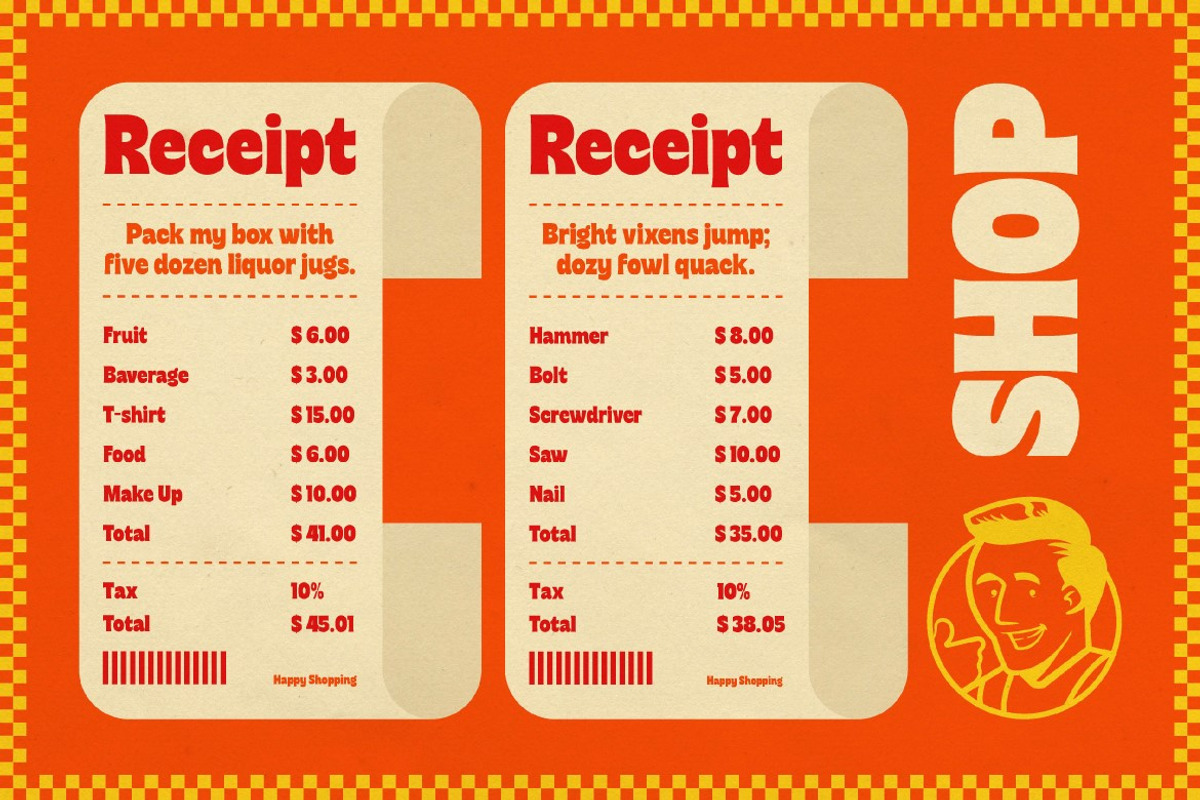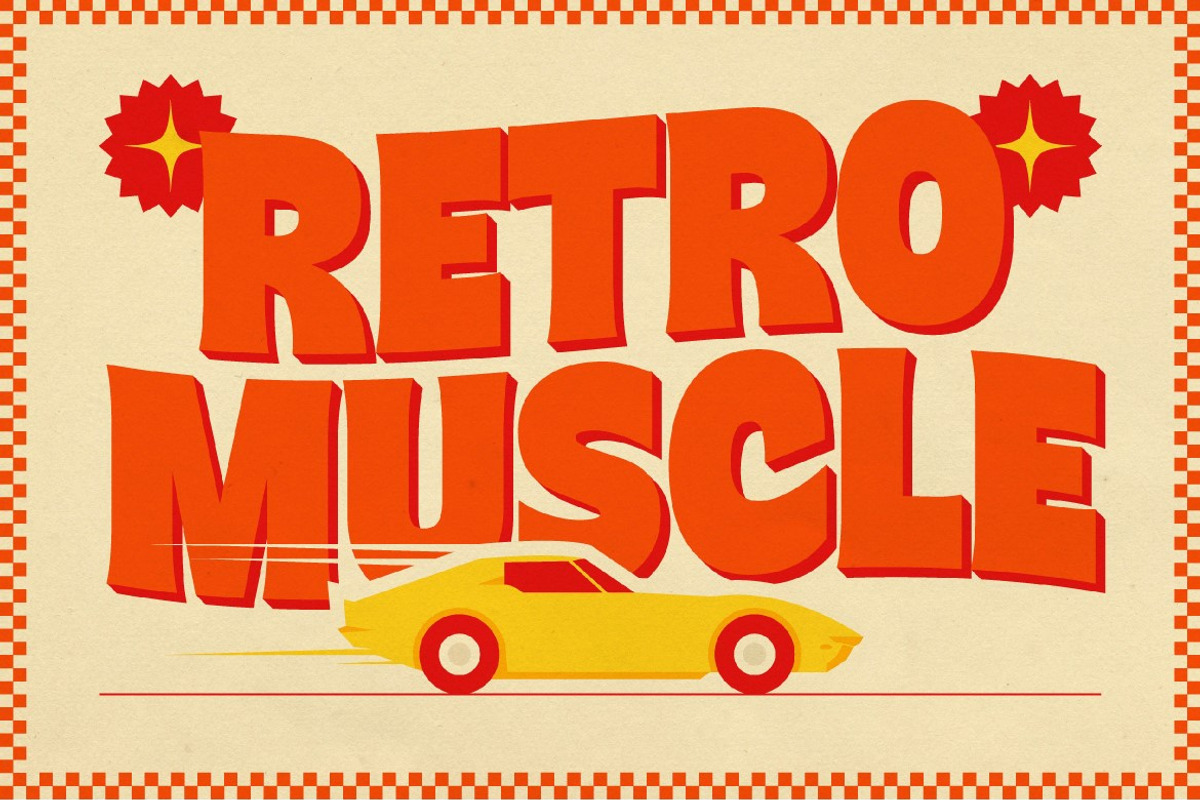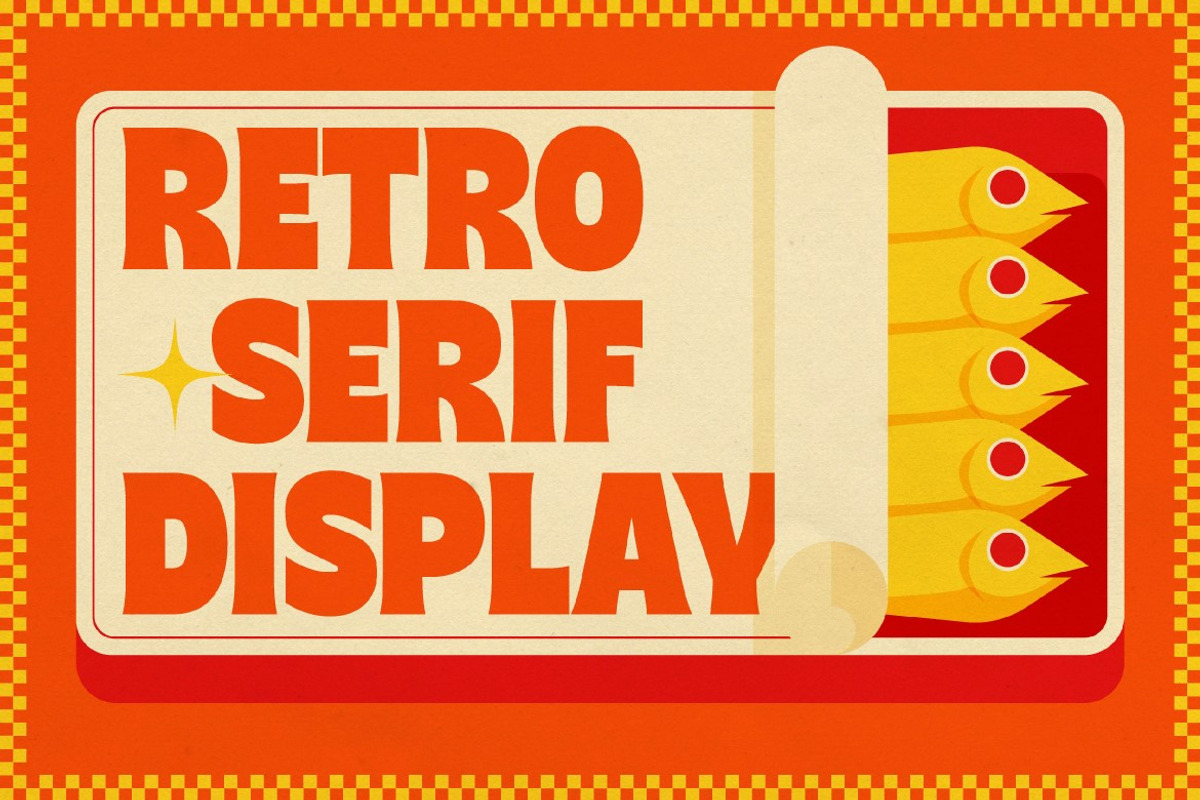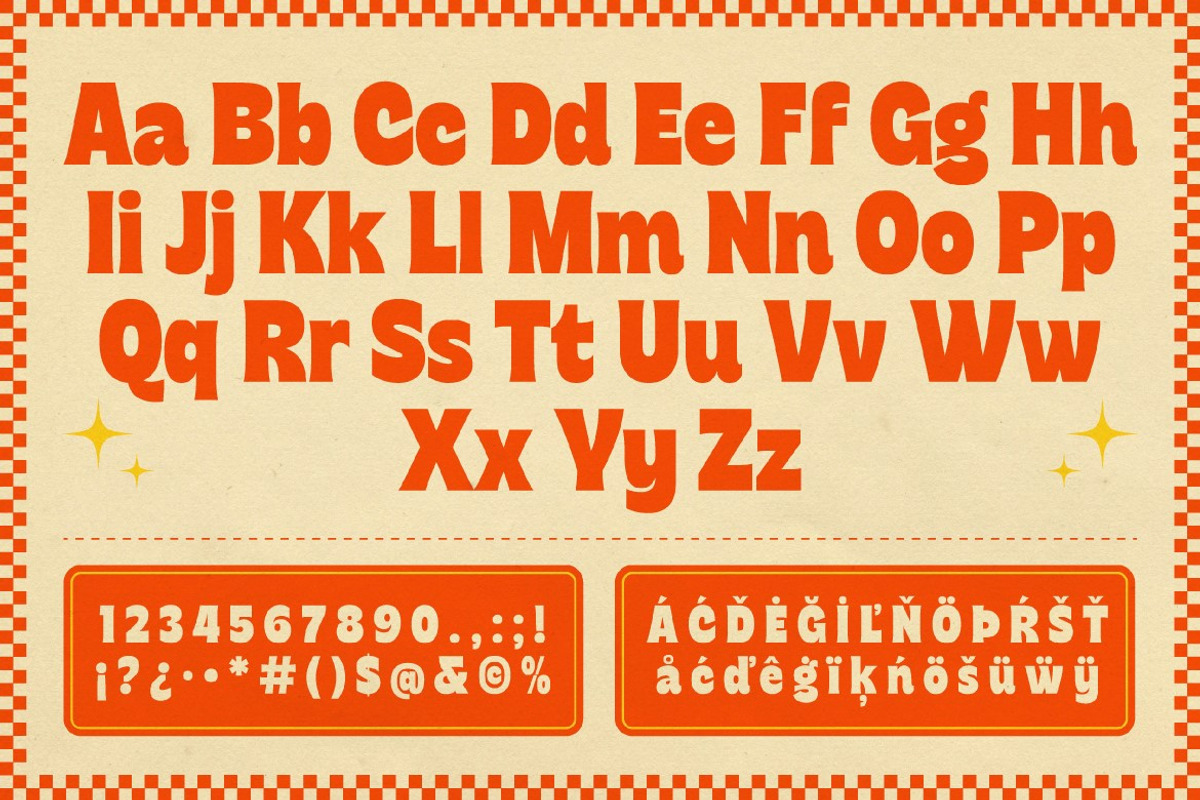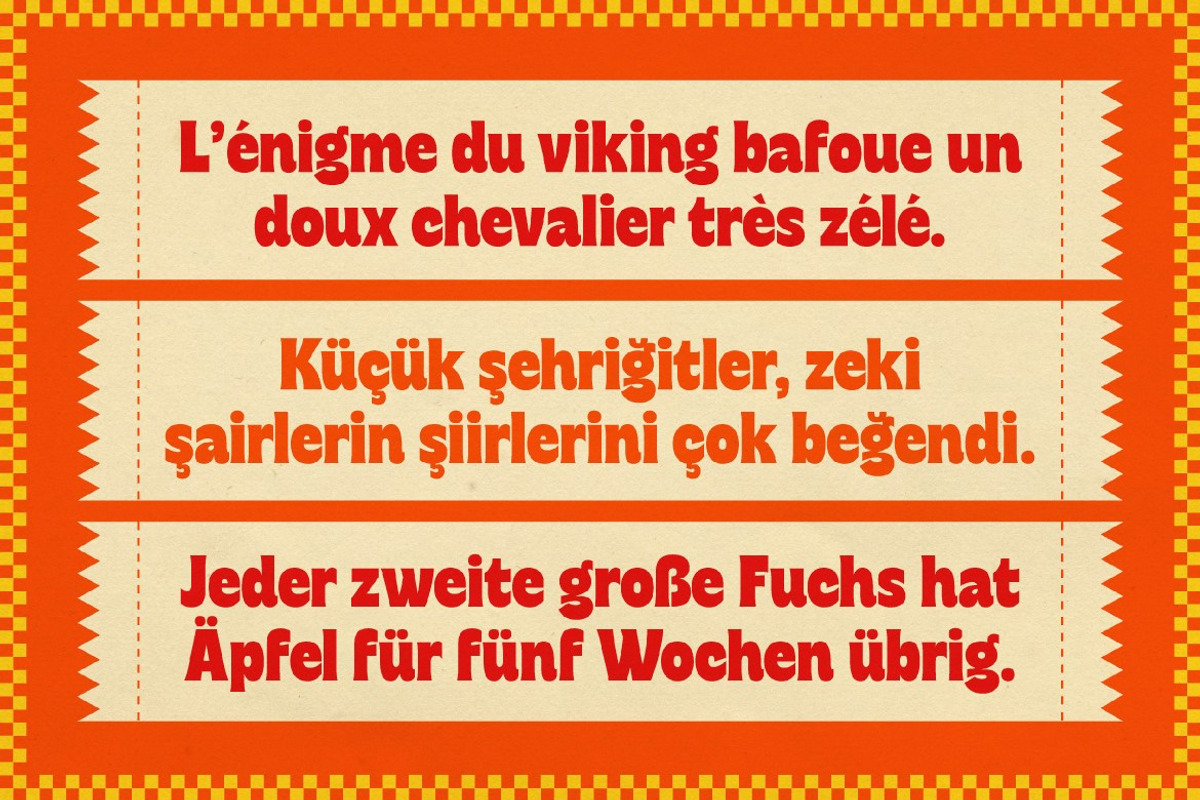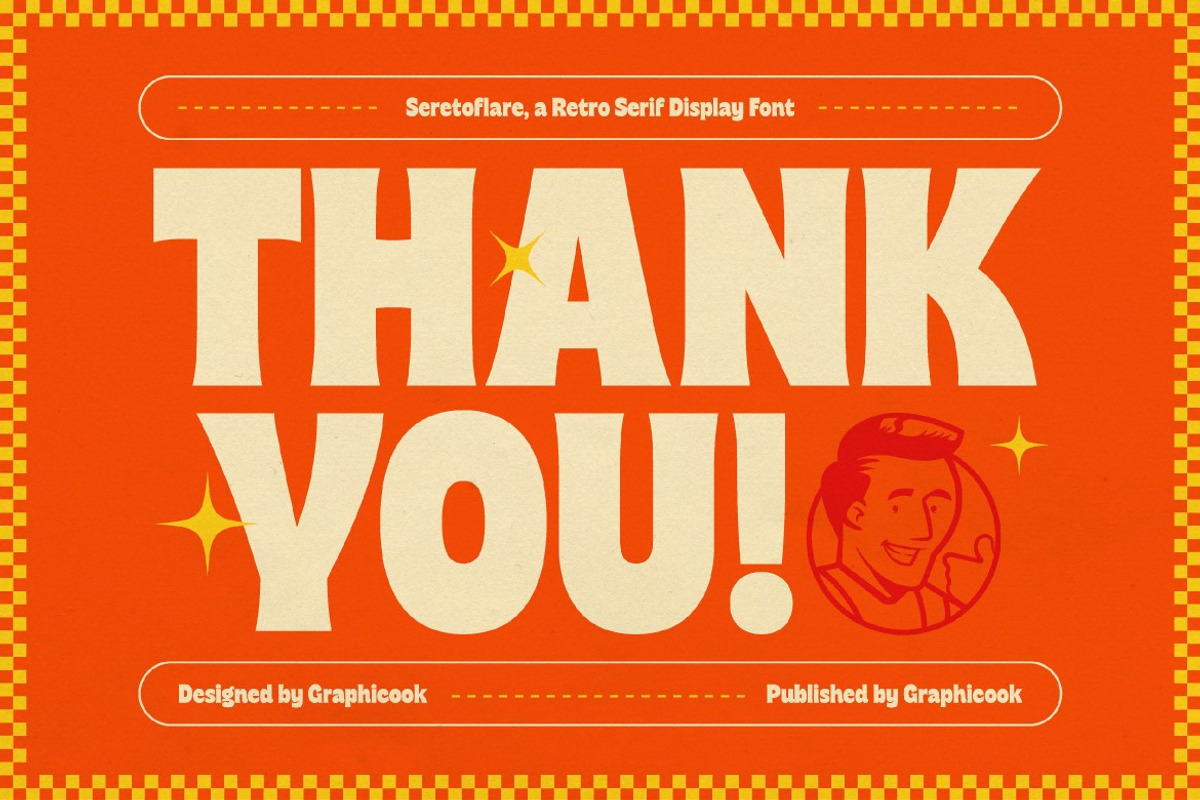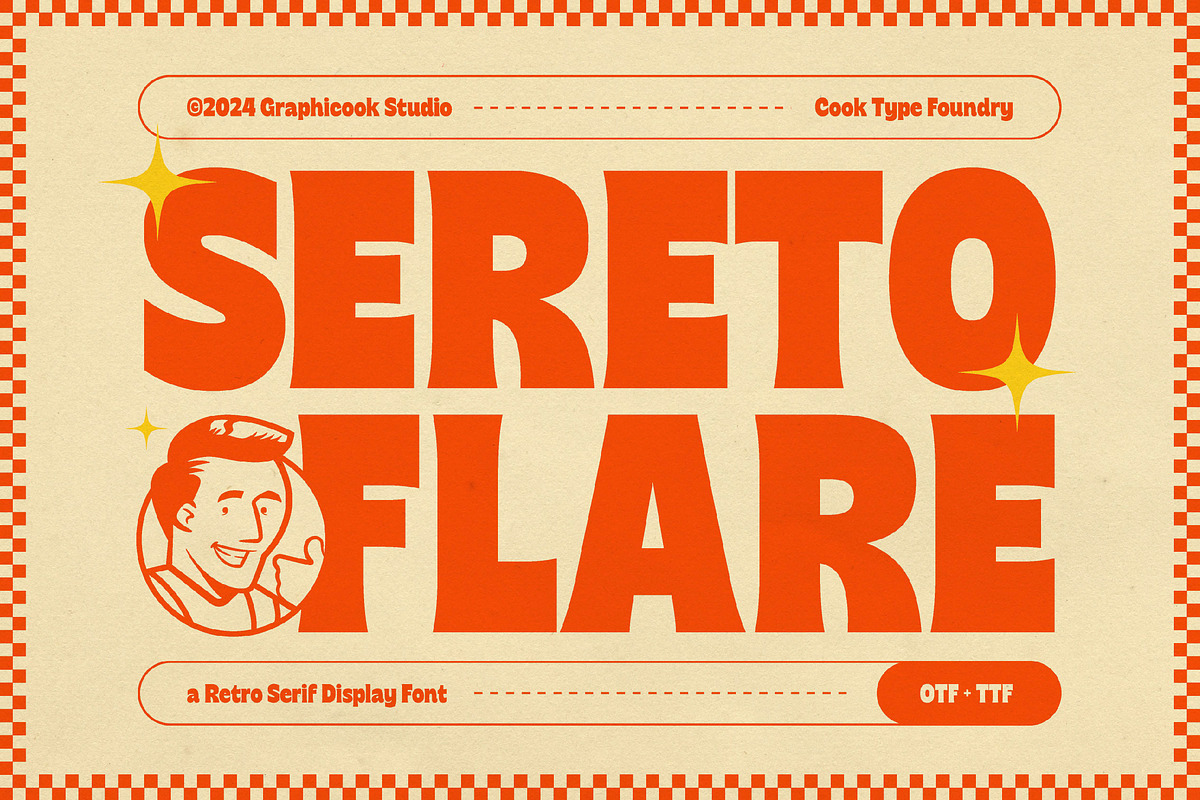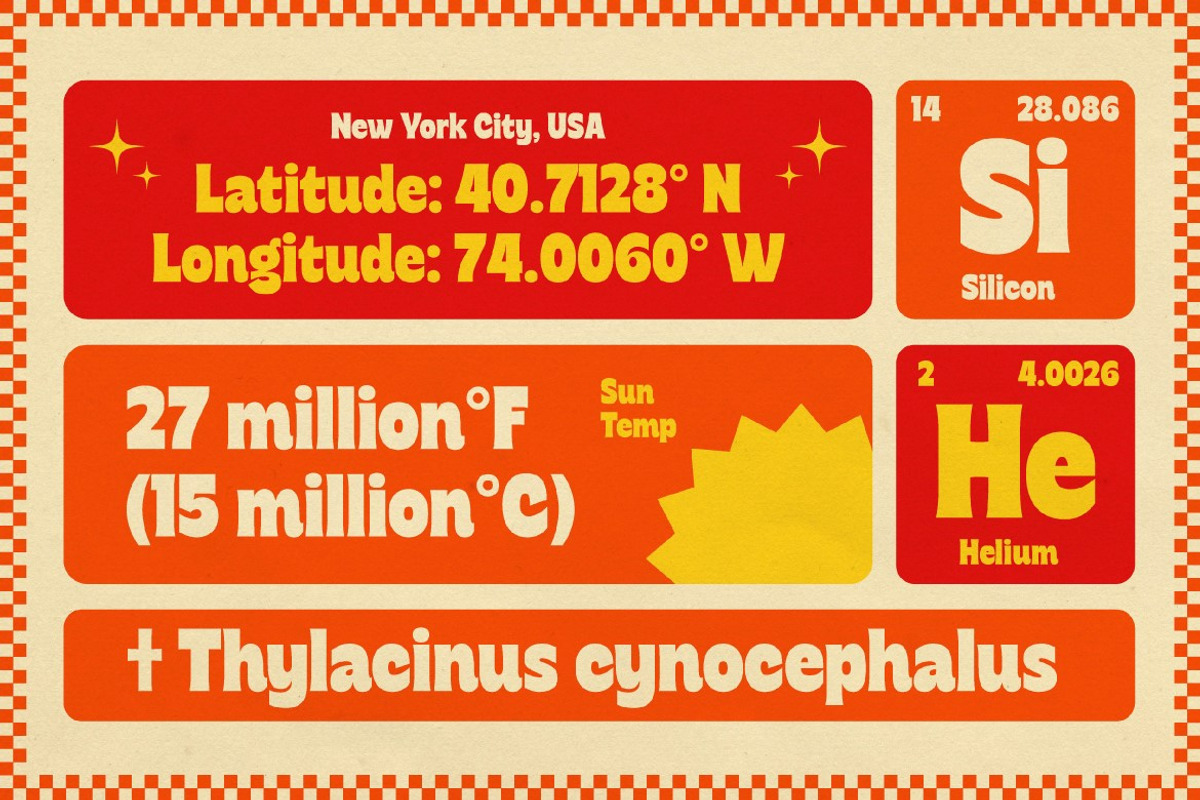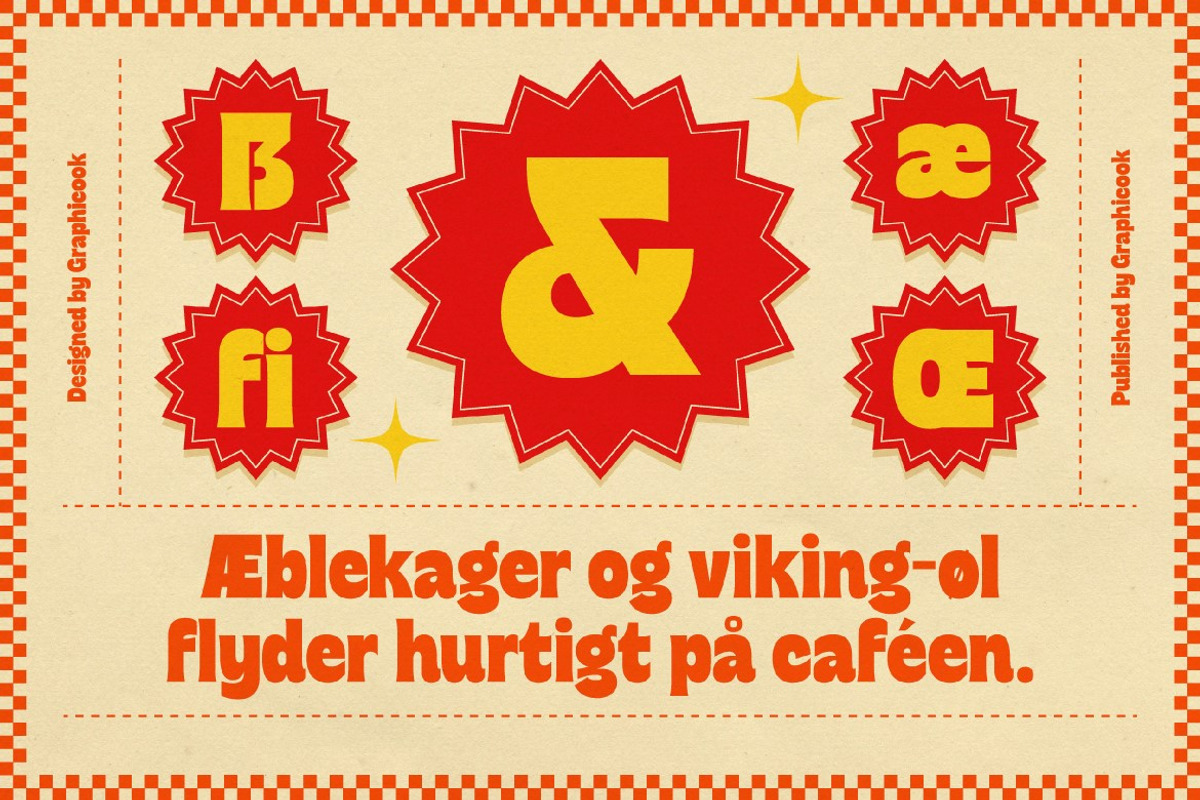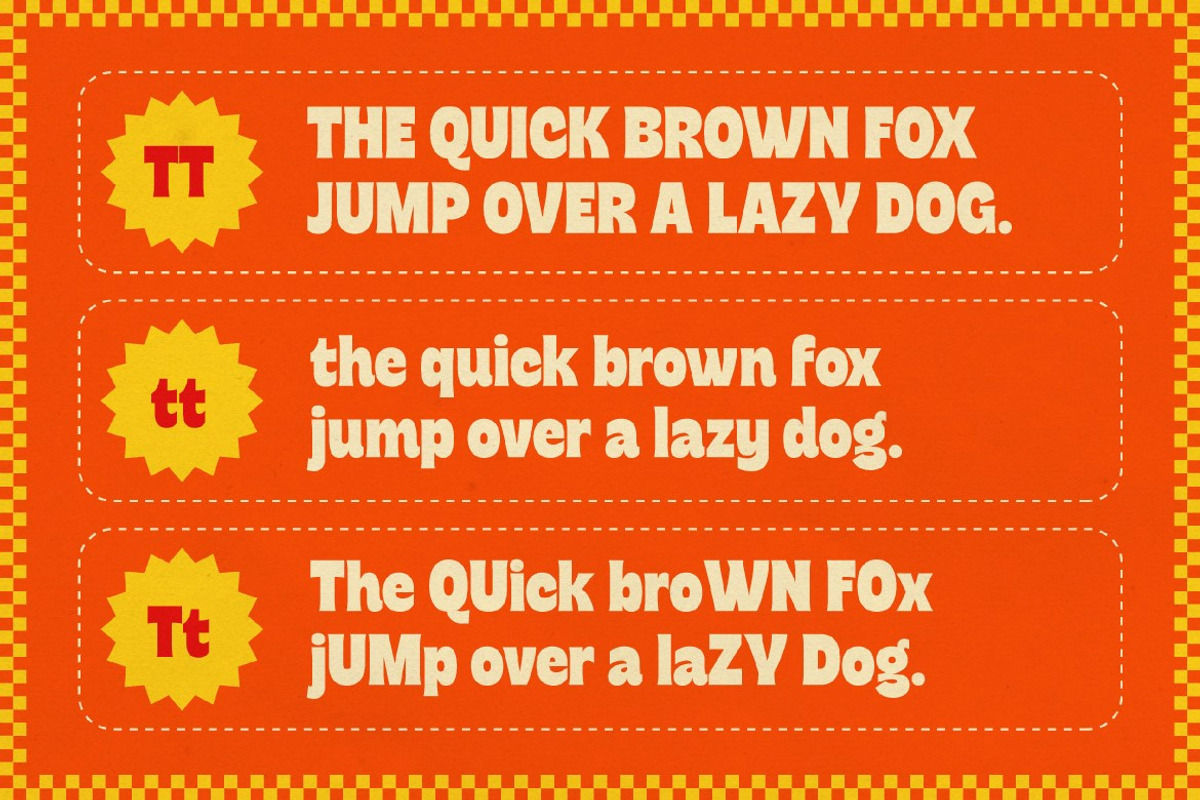
Seretoflare
Seretoflare a flared typeface that embodies retro vintage style. This versatile font is ideal for various project, including poster design, branding, packaging, and more.
Seretoflare is perfect for headlines, logotypes, magazines, packaging, quotes, movies, games, cover albums, book covers, and flyers, it's a perfect solution for creating eye-catching designs that stand out in any context.